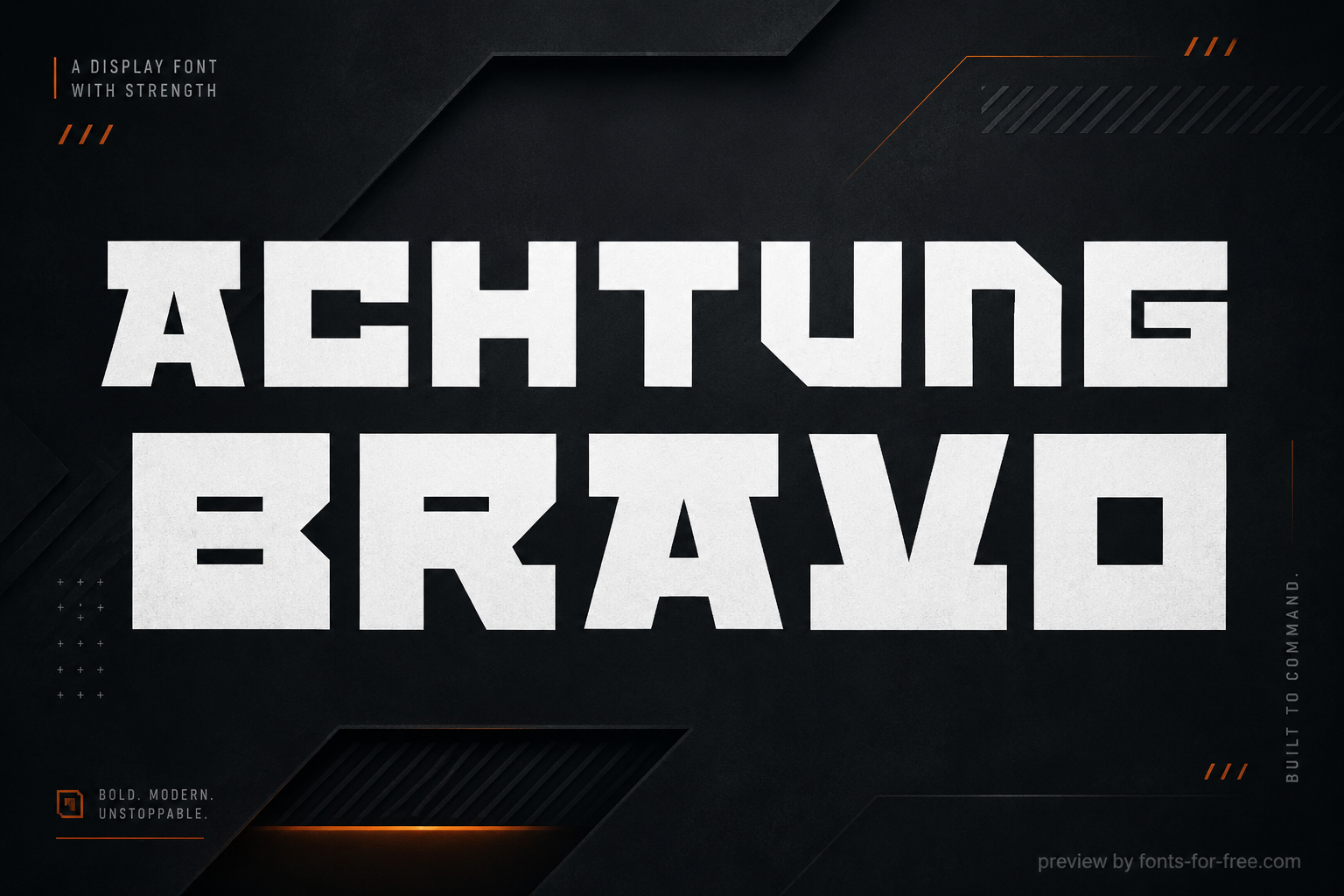
Achtung Bravo is a heavy geometric display font by GGBotNet, built from wide block letterforms with sharp internal cuts and compact negative spaces. Its upright shapes, low stroke contrast, and squared terminals create an industrial, tactical mood, while angled notches add motion without turning the design into a decorative script. The large, dense forms read best at headline sizes rather than in long text. It suits titles, posters, game graphics, sports branding, badges, sci-fi interfaces, and other designs that need a bold mechanical tone. It is licensed under the SIL Open Font License 1.1.